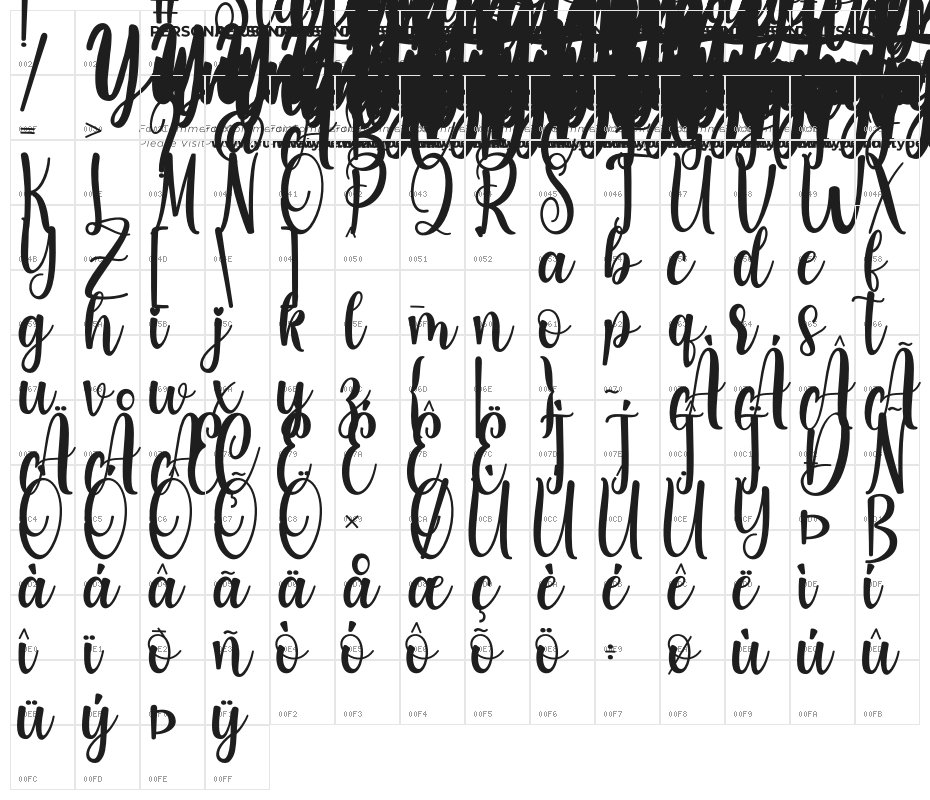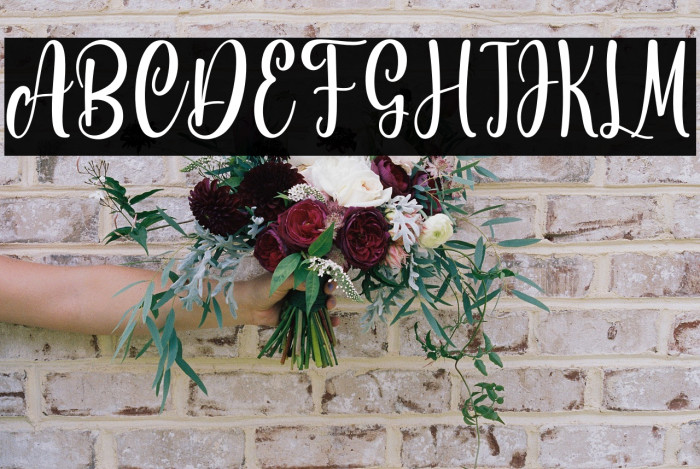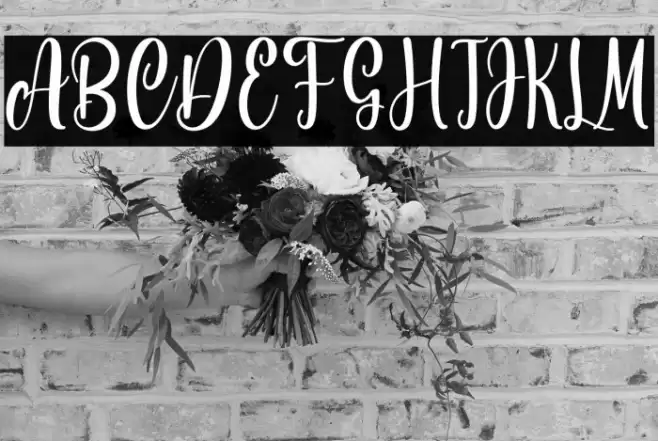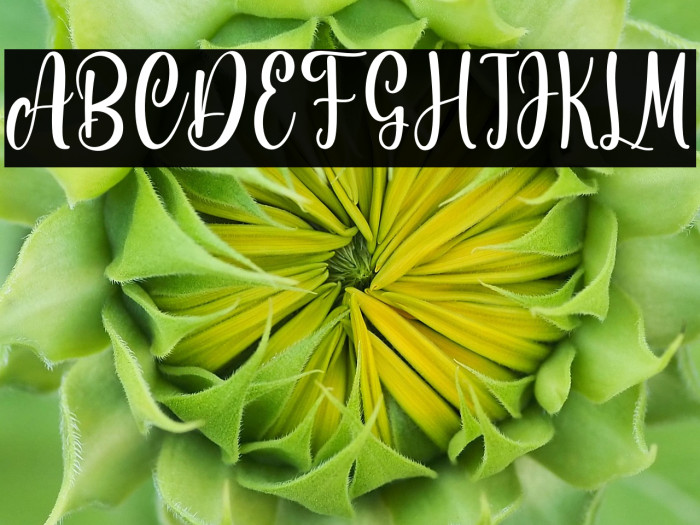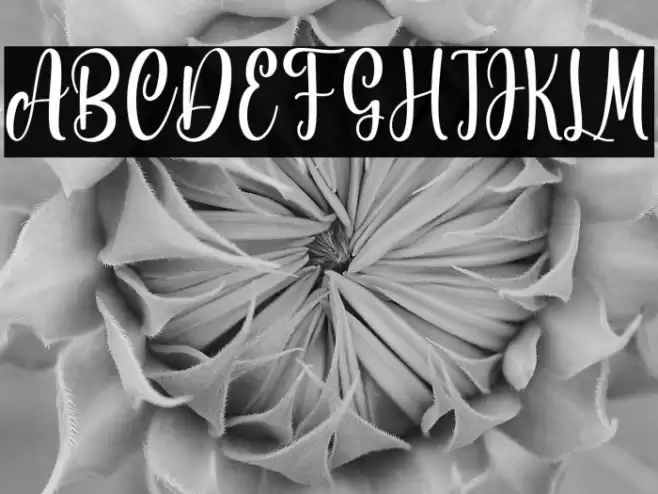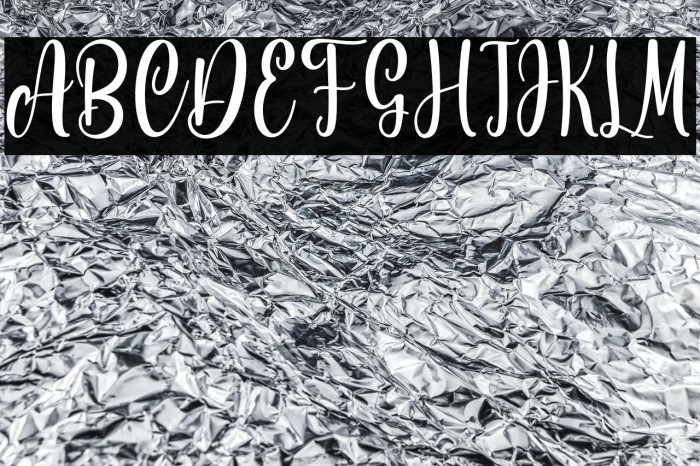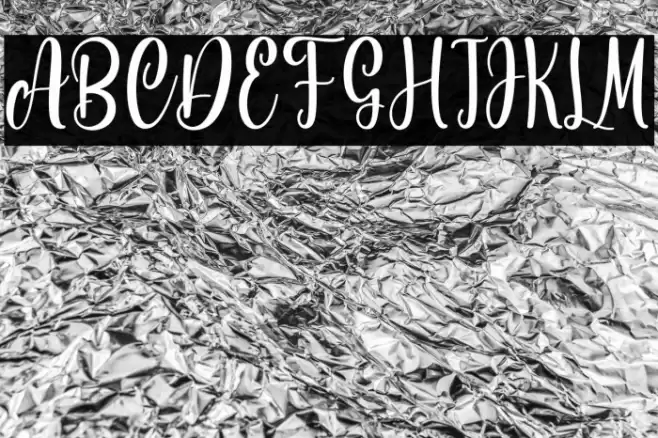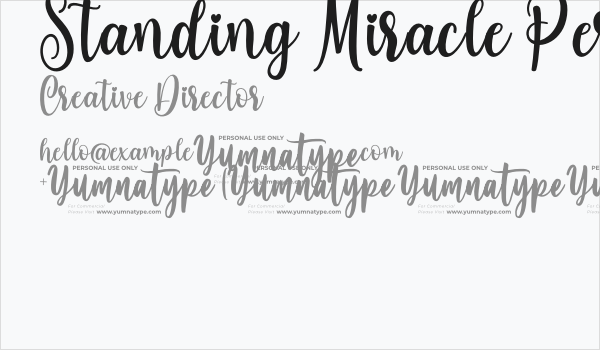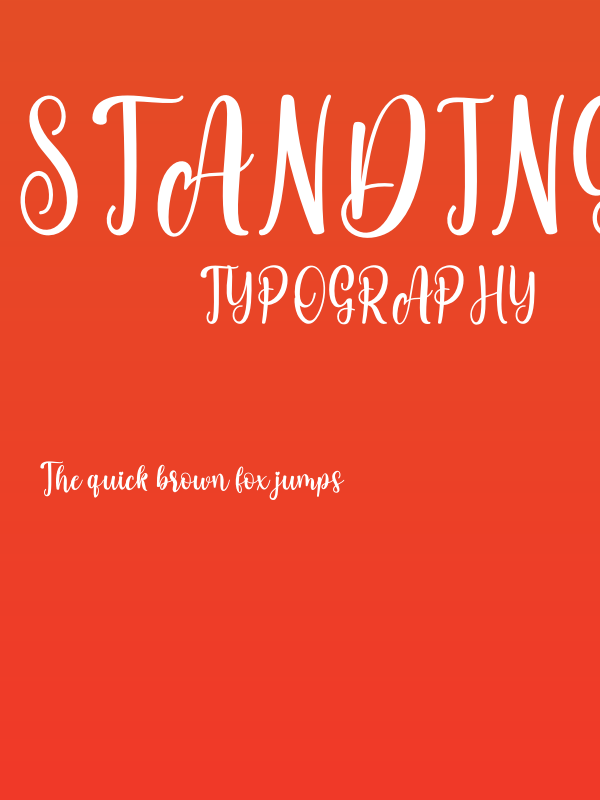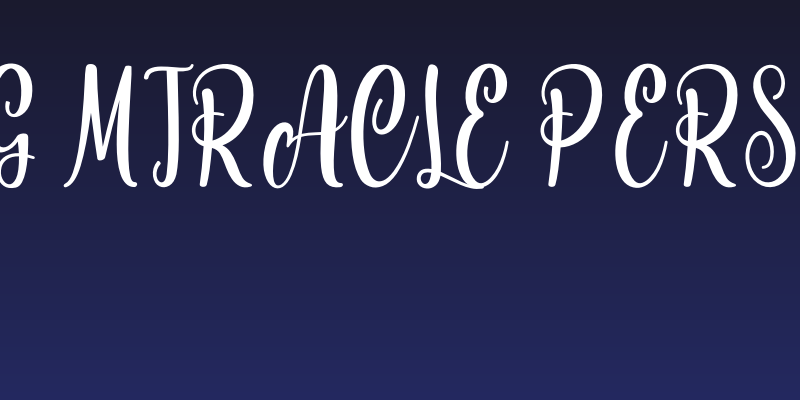
This font features a playful and elegant script style with a handwritten feel. The uppercase letters are tall and slightly narrow, with a whimsical flair that includes loops and swashes. The lowercase letters maintain a consistent flow, with some characters featuring unique embellishments like hearts on the 'i' and 'j'. The overall appearance is bold and expressive, making it suitable for creative and decorative purposes. The font's strokes are thick, providing a strong visual impact, while the spacing between characters is moderately tight, enhancing its cohesive look.
Use CaseLogos, Headlines, Invitations
Proposed ProjectsIdeal for wedding invitations, greeting cards, branding, and social media graphics.